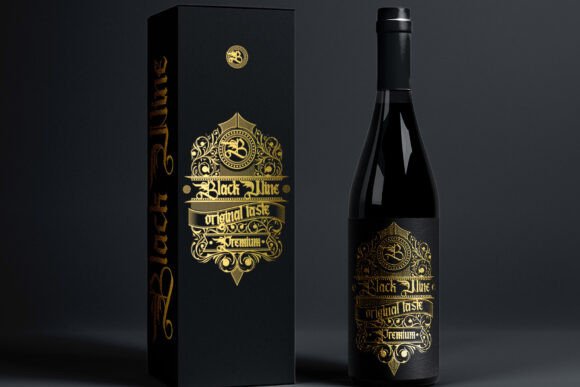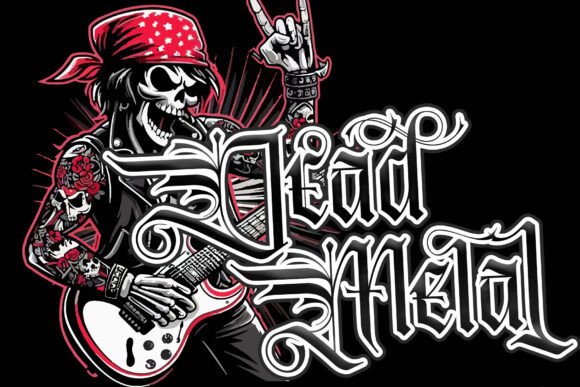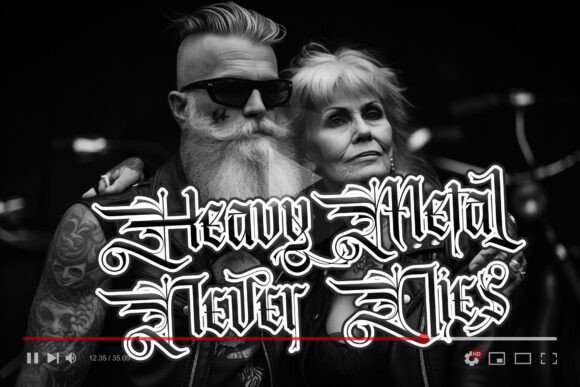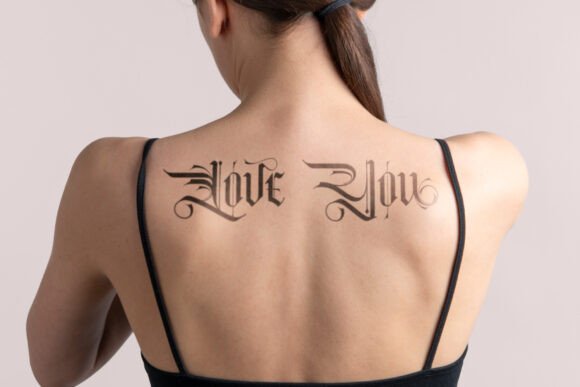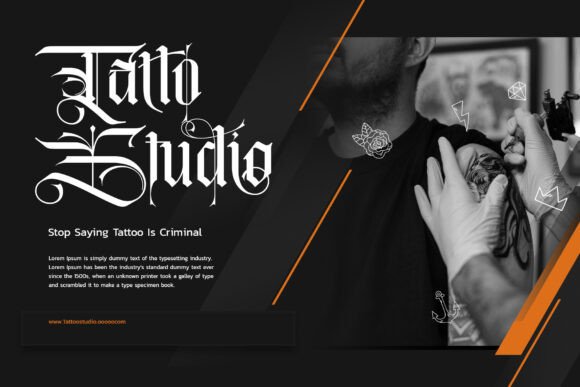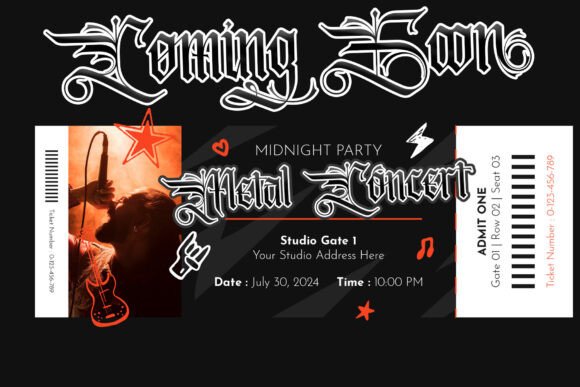
Unleash the Gothic Majesty of Dreadthorn: A Powerful Blackletter Font
Step into the shadowed allure of Dreadthorn, a blackletter font that embodies the essence of gothic majesty and untamed power. This striking typeface is designed to make a bold statement, radiating an aura of mystery and strength that demands attention. With its sharp, intricate strokes and fierce presence, Dreadthorn is the perfect choice for designers and crafters looking to add a touch of dark elegance to their creations.
The Essence of Gothic Majesty
Dreadthorn’s design is deeply rooted in the traditions of blackletter typography, with a unique twist that sets it apart from other fonts in this category. Its sharp, pointed strokes and bold lines evoke a sense of raw power and untamed energy, making it an ideal choice for projects that require a strong, gothic aesthetic. Whether you’re designing album covers, dark branding, cinematic titles, or striking posters, Dreadthorn’s gothic majesty is sure to leave a lasting impression.
Perfect for Bold Creations
Dreadthorn is a versatile font that can be used in a variety of creative projects. Its bold, eye-catching design makes it perfect for:
- Album Covers: Add a touch of gothic elegance to your music album covers with Dreadthorn’s striking typography.
- Dark Branding: Create a bold, memorable brand identity with Dreadthorn’s fierce and mysterious presence.
- Cinematic Titles: Make your movie titles and credits stand out with Dreadthorn’s dramatic, gothic flair.
- Striking Posters: Create eye-catching posters and flyers that demand attention with Dreadthorn’s bold, blackletter design.
Crafting Iconic Logos and Headlines
Dreadthorn is not just a font – it’s a design statement. Its unique blend of elegance and raw dominance makes it perfect for crafting iconic logos and bold headlines. With Dreadthorn, you can transform your creations into works of gothic brilliance that leave a lasting impression on your audience. Whether you’re designing a logo for a new brand or creating a bold headline for a marketing campaign, Dreadthorn’s sharp, intricate strokes and fierce presence are sure to make your design stand out.
Why Choose Dreadthorn?
So why choose Dreadthorn over other blackletter fonts? Here are just a few reasons why Dreadthorn stands out:
- Unique Design: Dreadthorn’s sharp, intricate strokes and bold lines create a unique design that sets it apart from other blackletter fonts.
- Versatility: Dreadthorn can be used in a variety of creative projects, from album covers to cinematic titles.
- Elegance and Power: Dreadthorn combines elegance and raw dominance, making it perfect for designers and crafters looking to add a touch of gothic majesty to their creations.
Unleash Your Creativity with Dreadthorn
Dreadthorn is more than just a font – it’s a design experience. With its bold, gothic aesthetic and sharp, intricate strokes, Dreadthorn is the perfect choice for designers and crafters looking to unleash their creativity and add a touch of dark elegance to their projects. So why wait? Unleash the untamed spirit of design with Dreadthorn and transform your creations into works of gothic brilliance.
In conclusion, Dreadthorn is a powerful blackletter font that embodies the essence of gothic majesty and untamed power. With its sharp, intricate strokes and fierce presence, Dreadthorn demands attention and leaves a lasting impression. Whether you’re designing album covers, dark branding, cinematic titles, or striking posters, Dreadthorn is the perfect choice for designers and crafters looking to add a touch of dark elegance to their creations. So why wait? Download Dreadthorn today and unleash the untamed spirit of design.